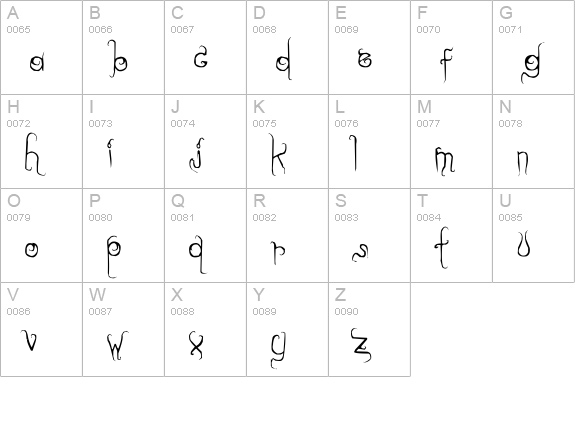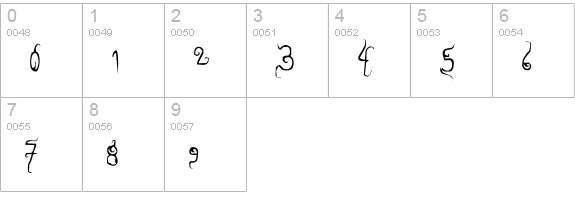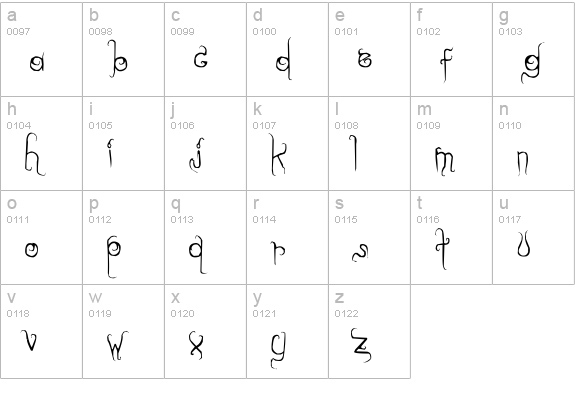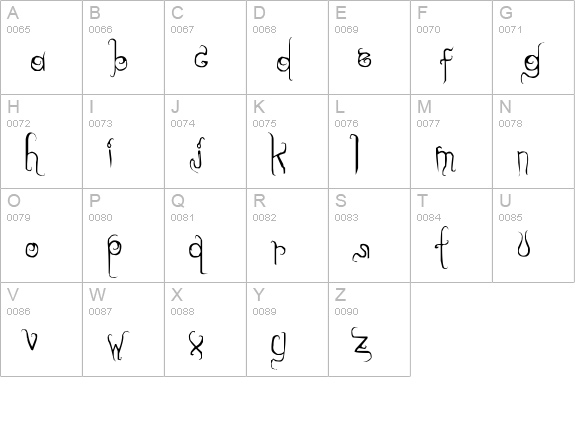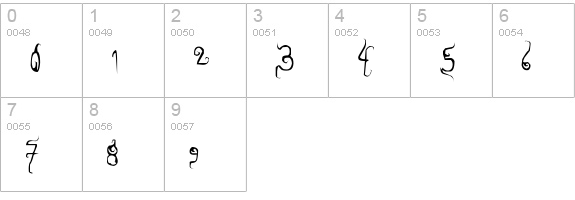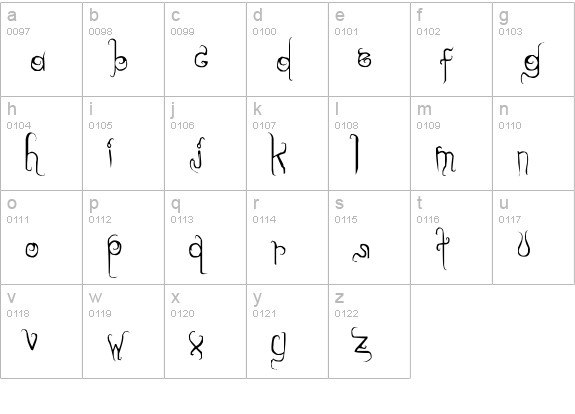
dilate. Font Details
"Dilate font is a unique and modern typeface that will add a touch of sophistication to your designs. With its sleek and elegant letterforms, Dilate font is perfect for a wide range of projects, from branding to editorial design. This font is designed to stand out and make a statement, while still maintaining a high level of readability. The best part? Dilate font is freely available to download at FontsMarket.com. Whether you're a professional designer or just starting out, this font is a must-have addition to your collection. Don't miss out on the opportunity to elevate your designs with the stylish and versatile Dilate font. Download it today and unleash your creativity!"